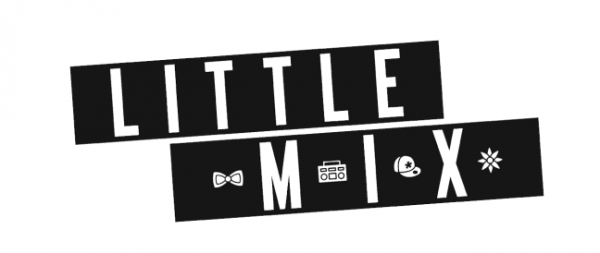
Little Mix Font
The Little Mix logo above first appeared on the group’s debut album, DNA. The font used for the logo is probably Bebas, which is a free font and you can download it here.
A brush style logo for the group, first seen from their second studio album, Salute, probably custom made. Fonts that will achieve similar feel would be Streetbrush, Mustang.